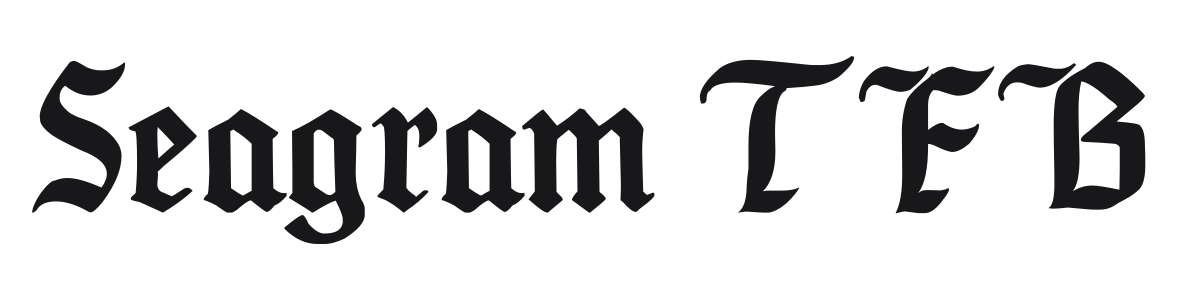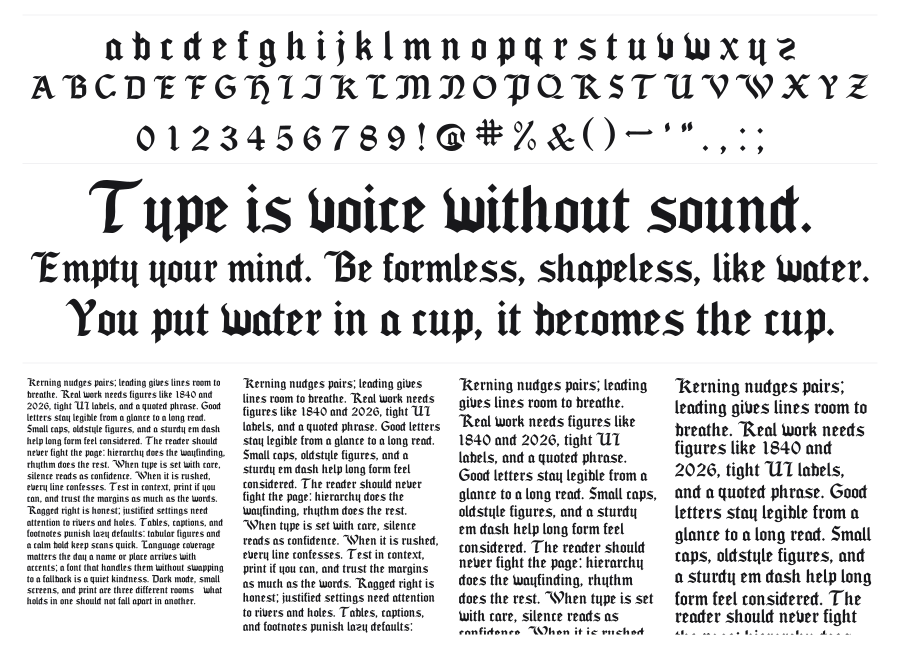
Seagram TFB
by zanatlija
Seagram TFB is a heavy blackletter in the Textura tradition, drawn with dense vertical strokes and sharp diamond serifs. The compressed proportions and dramatic stroke contrast give it a commanding presence that reads immediately as historical and serious. It sits naturally on album covers, brand identities, and editorial headlines where old-world authority is the goal.